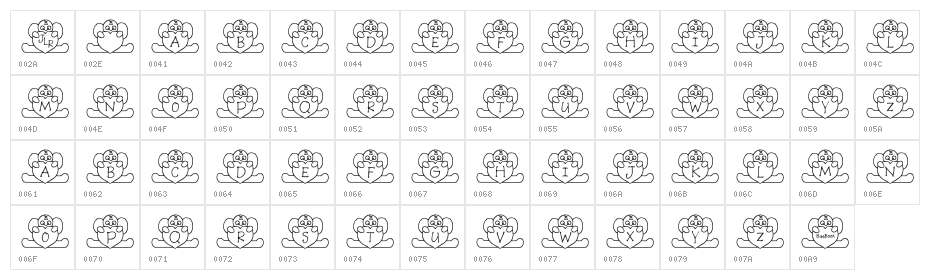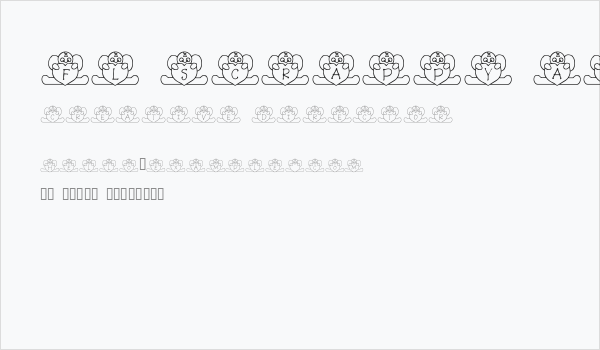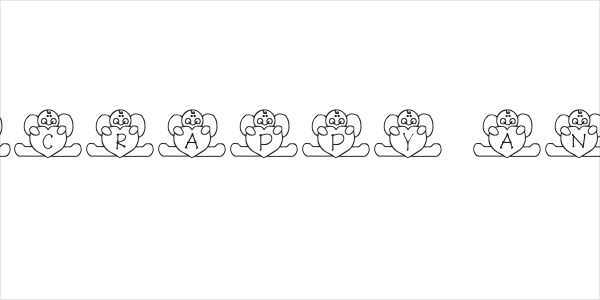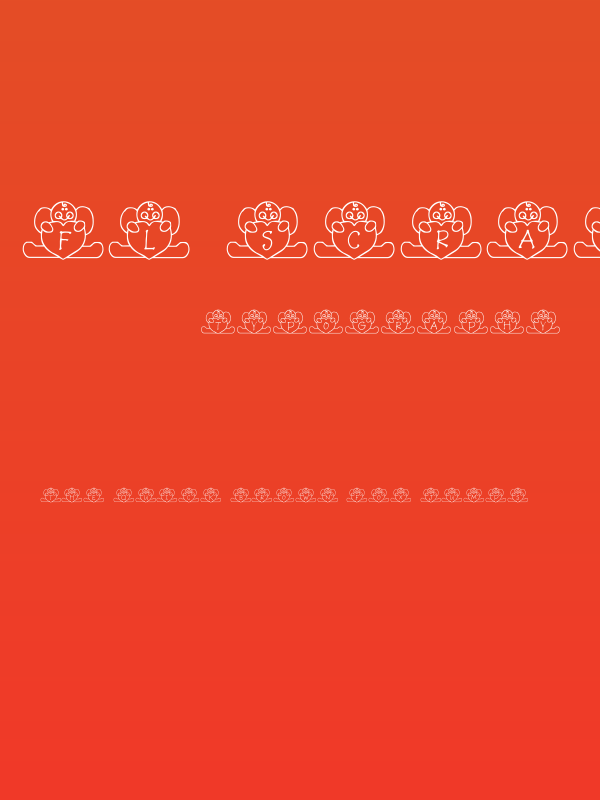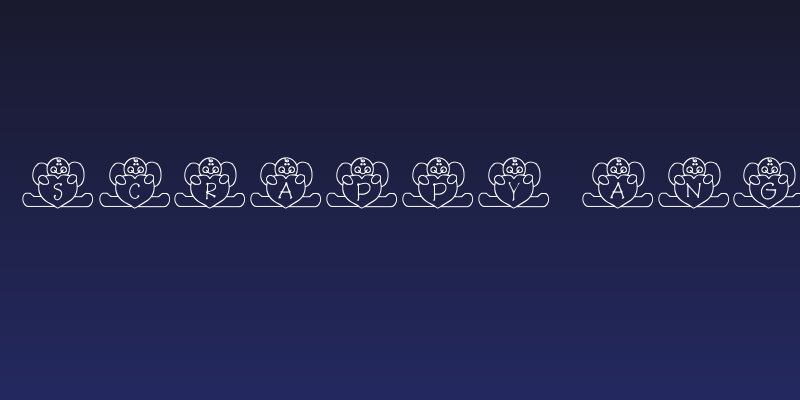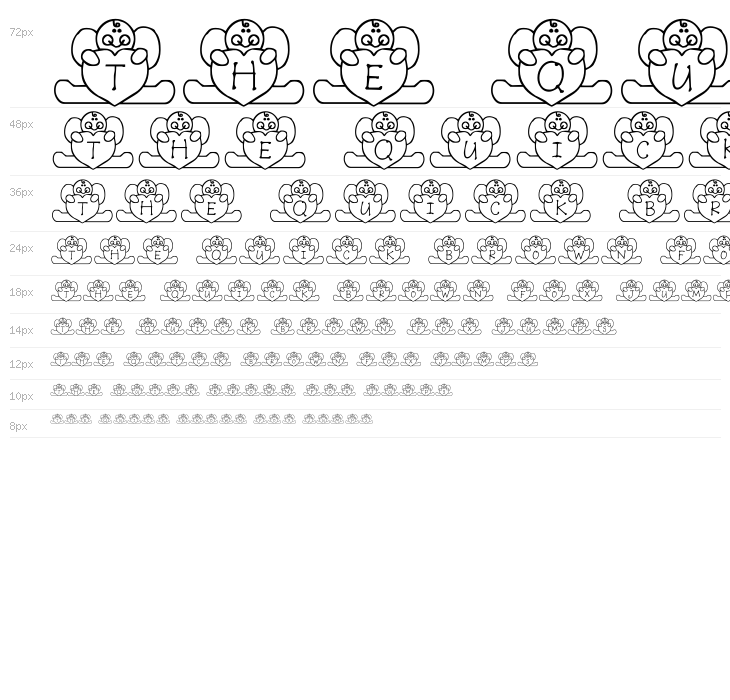
FL Scrappy Angel Font
FL Scrappy Angel Description
This font features whimsical, cartoon-like characters with each letter embedded within a playful angel design. The angels are depicted sitting with wings and a halo, creating a charming and lighthearted aesthetic. The letters are uppercase and lowercase, each centered within the angel's body, maintaining a consistent style throughout. The font is decorative, with a focus on fun and creativity, making it ideal for projects that require a touch of whimsy. The characters are evenly spaced, ensuring readability while maintaining the playful theme. This font is perfect for children's projects, greeting cards, or any design that seeks to convey a sense of joy and innocence.
| Proposed Projects | Ideal for children's books, greeting cards, playful invitations, and decorative posters. |